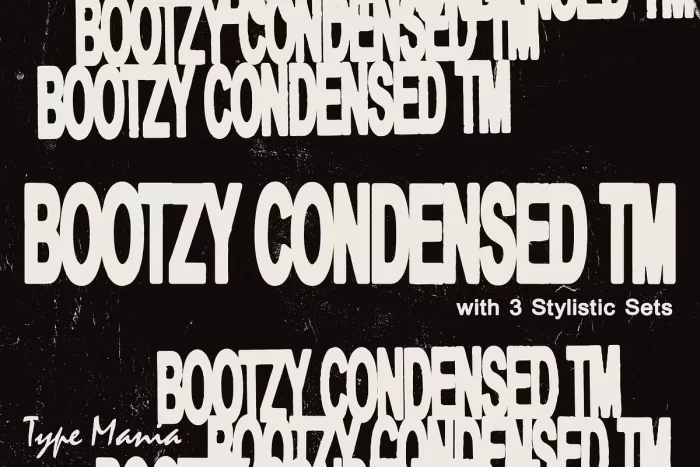
Bootzy Condensed Font
Introducing Bootzy Condensed TM, a rugged display sans serif born from and for the creative underground. Inspired by the DIY ethos of bootlegging, this font is perfect for flyers, zines, and rebellious expressions all over.